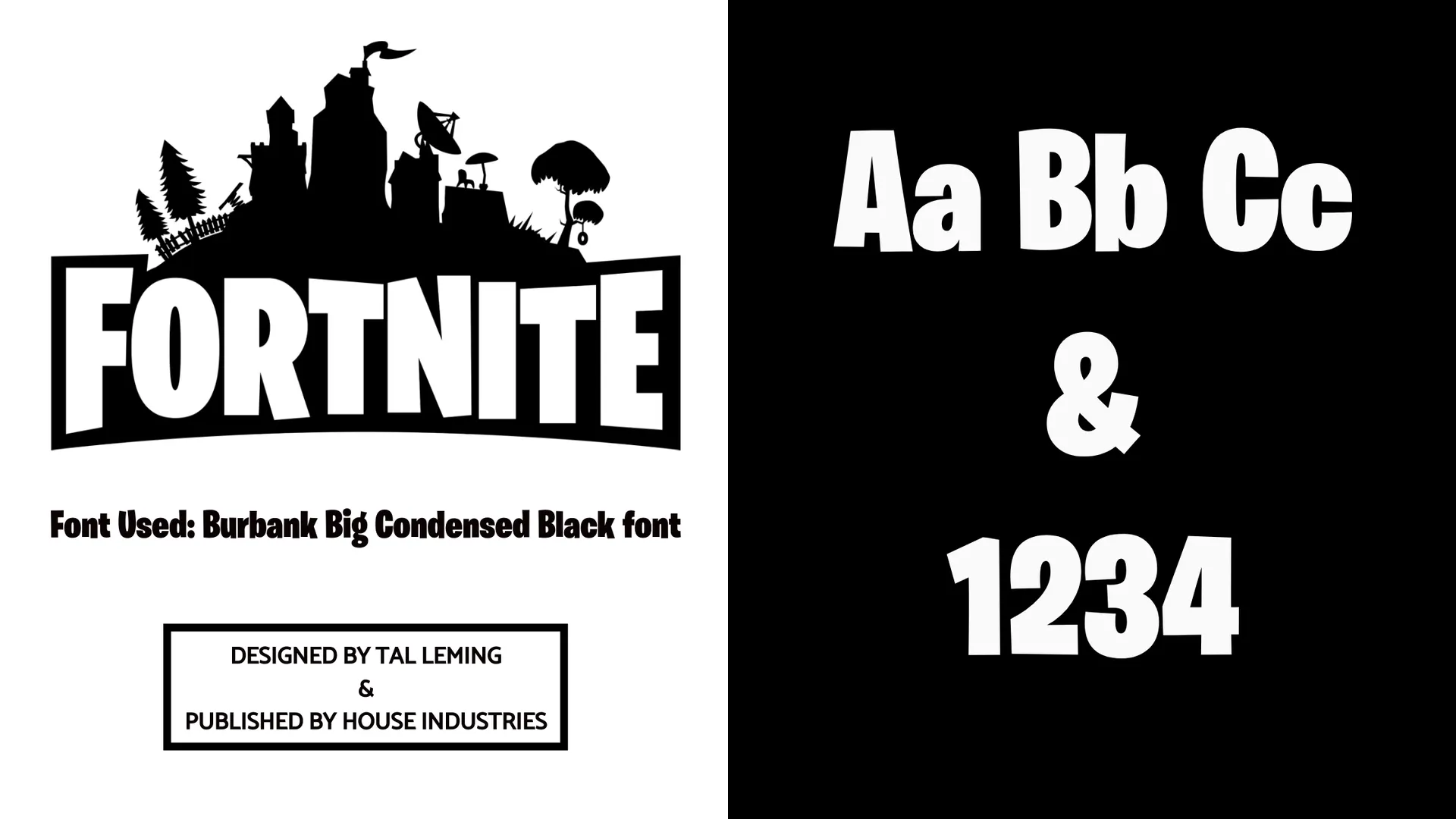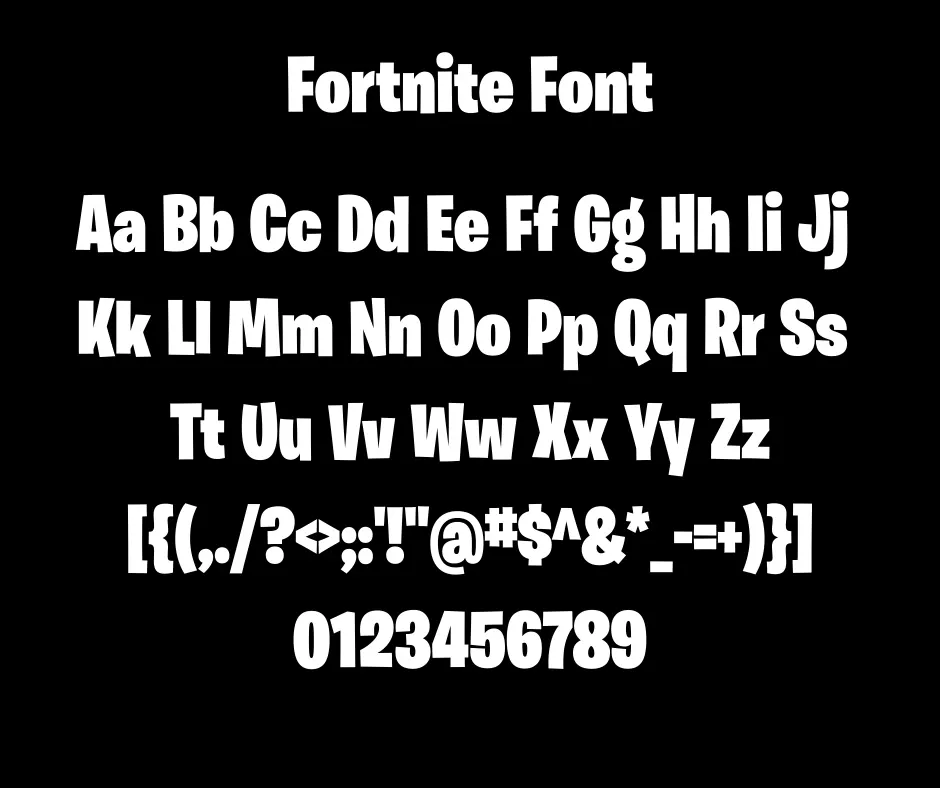
About Fortnite Logo
Epic Games developed Fortnite, a free-to-play video game. The game was initially published on July 25th, 2017 for Microsoft Windows, macOS, and PlayStation 4, and on December 12th, 2017 for iOS. The label gained tremendous popularity quickly and now has more than 350 million players throughout the world. It was one of the most popular video game releases of the 2000s. This article will inform you about Fortnite’s logo and its logo font. Free Download Fortnite font is also available here. Let’s talk about the current logo of Fortnite.
Since the game’s debut in 2011, the famed online shooter’s visual identity has only been modified twice. And the current Fortnite logo is the most basic and clean of the three, yet being immediately known throughout the world and looking professional and highly contemporary. The wordmark lost its hand-made look in the present design, opting for blocky capital letters with no additional decorations. The sans-serif typeface has become considerably simpler to read in any setting. In certain situations, the logo now incorporates a black background with a white typeface for the word itself. The setting illustrates some of the locales that a player may encounter while playing the game.
Which font does Fortnite use?
Fortnite uses Burbank Big Condensed Black font in its current logo. It is a font designed by Tal Leming and published through House Industries. Burbank Big Condensed Black font free download is available here.
About Burbank Font
Burbank is a display sans-serif font that comes in 20 different styles: Burbank Big comes in three widths with four upright weights each, and is complimented by Burbank Small, a version designed for smaller sizes with four weights and italics. This typeface, like all others, began with a tiny family and restricted weight possibilities. However, the family grew through time, and it is now one of the most prominent and largest font families. It is also used on a variety of platforms due to its broad font family.
What Type of Font is Fortnite?
The font that Fortnite uses is a display, sans-serif font designed by Tal Leming.